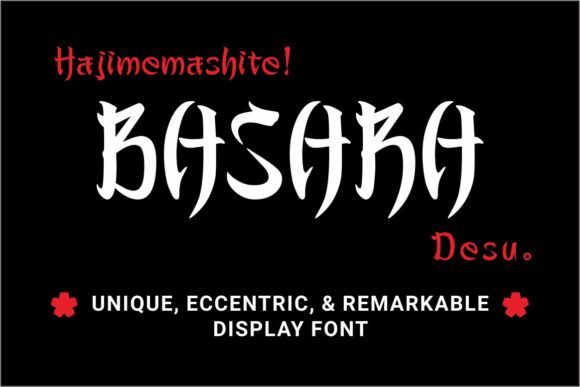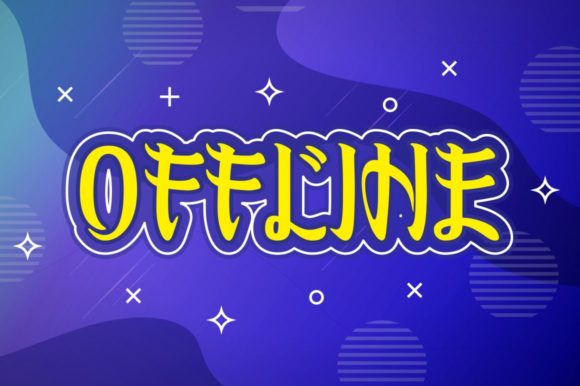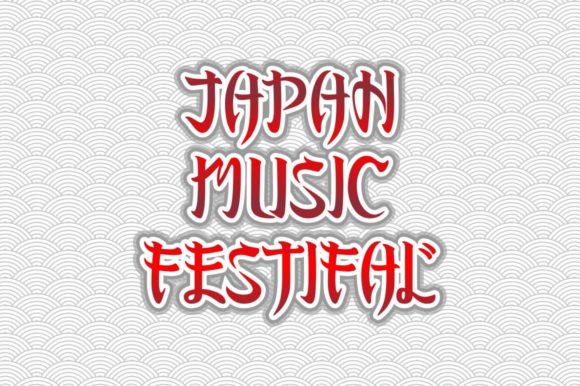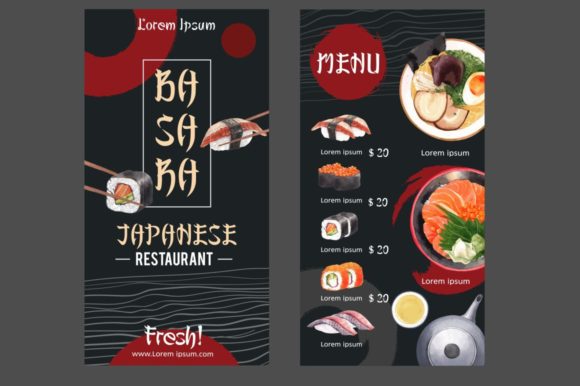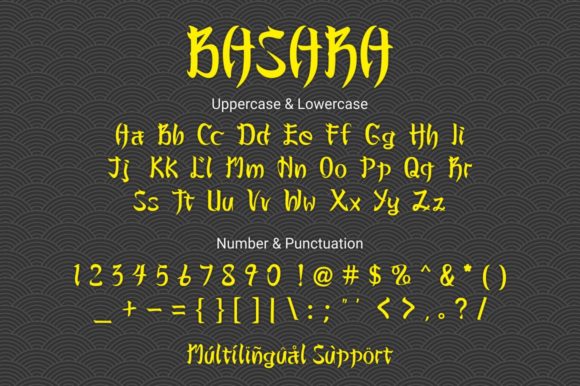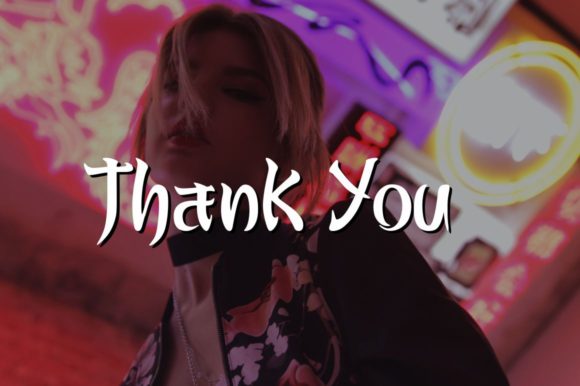
Unleash Your Creativity with the Basara Font
There’s something magical about the moment when a design comes together – a fusion of colors, shapes, and typography that leaves you breathless. As a designer, you know that font choice can make or break the mood of your project. For those seeking a touch of Eastern elegance, the Basara Font is an inspired choice.
Basara Font is a genuine display font that draws its inspiration from the rich cultural heritage of Japan. Its unique blend of modern and traditional elements makes it perfect for creating eye-catching posters, flyers, and prints. Whether you’re working on a branding project or a promotional campaign, Basara Font is sure to elevate your design and leave a lasting impression.
With its versatility and distinct style, the Basara Font is a valuable addition to any designer’s toolkit. So why settle for ordinary typography when you can unleash your creativity with the extraordinary Basara Font?
Basara Font Key Features
- Font Style: Basara is a Japanese font designed for use in various applications, including publishing, advertising, and digital media.
- Character Set: Supports a wide range of Japanese characters, including Hiragana, Katakana, and Kanji, making it suitable for various Japanese language applications.
- Unique Characteristics: Basara features a modern and elegant design, with subtle nuances in stroke width and letterform shapes to create a unique visual identity.
Basara Font Review
First off, let me say that the Basara Font has some amazing features that caught my eye ✨. The first thing I noticed was its unique and quirky design, which is perfect for creating a bold and playful atmosphere. The font also comes with a wide range of weights and styles, making it incredibly versatile and suitable for various design projects.
Another thing that works well is the font’s OpenType features, which provide more advanced typography options. This is especially useful for designers who want to create complex and detailed compositions.
What doesn’t quite work:
- ⚠️ Limited language support: While the font includes support for multiple languages, it’s not as comprehensive as some other fonts on the market.
- ⚠️ Some letterforms may be difficult to read at smaller sizes: While the font is generally legible, some of the letterforms may become distorted or difficult to read when scaled down.
Overall, I think the Basara Font is a solid choice for designers looking for a unique and versatile font. While it has some limitations, its strengths make it a great addition to any design toolkit. With a little bit of care and attention, I think this font could be a real showstopper in the right design project.
Getting the Most Out of Basara Font
To get the most out of the Basara font, try using it in bold or italic styles to add emphasis to your text.
Also, experiment with different font sizes to create a visually appealing hierarchy of information.
The Basara font is commonly used in:
- Japanese-inspired designs
- Asian-themed graphics
- Typography-focused projects